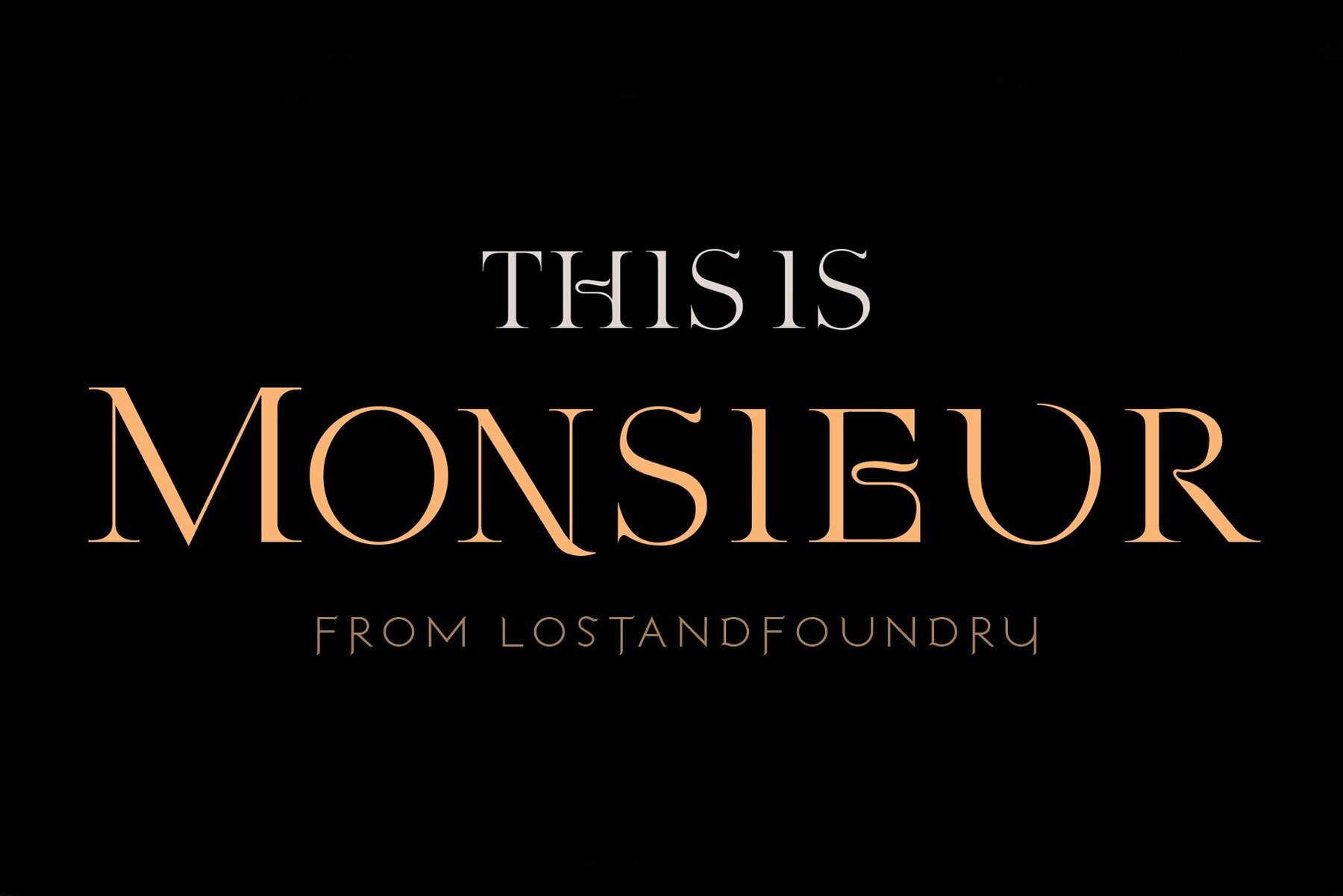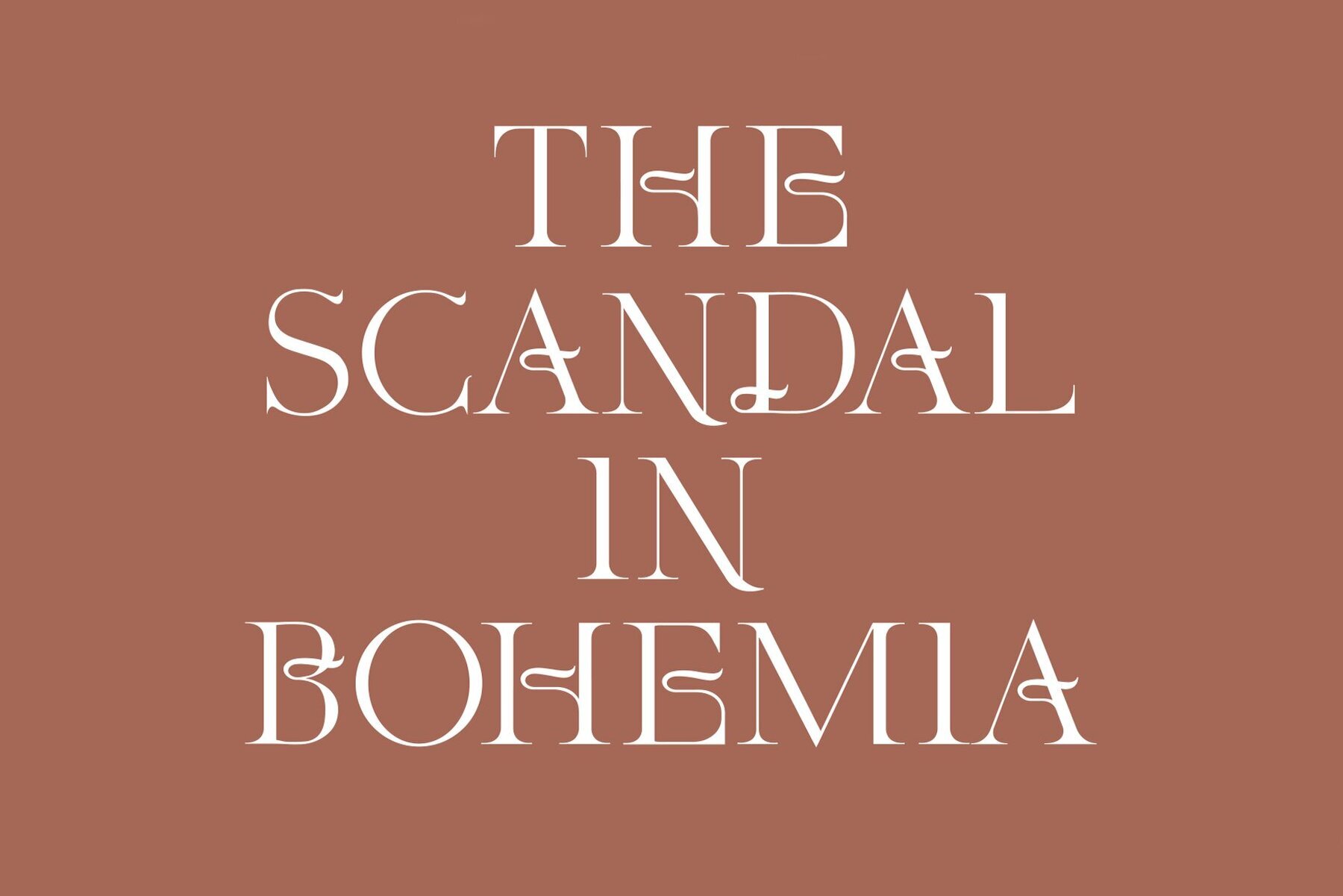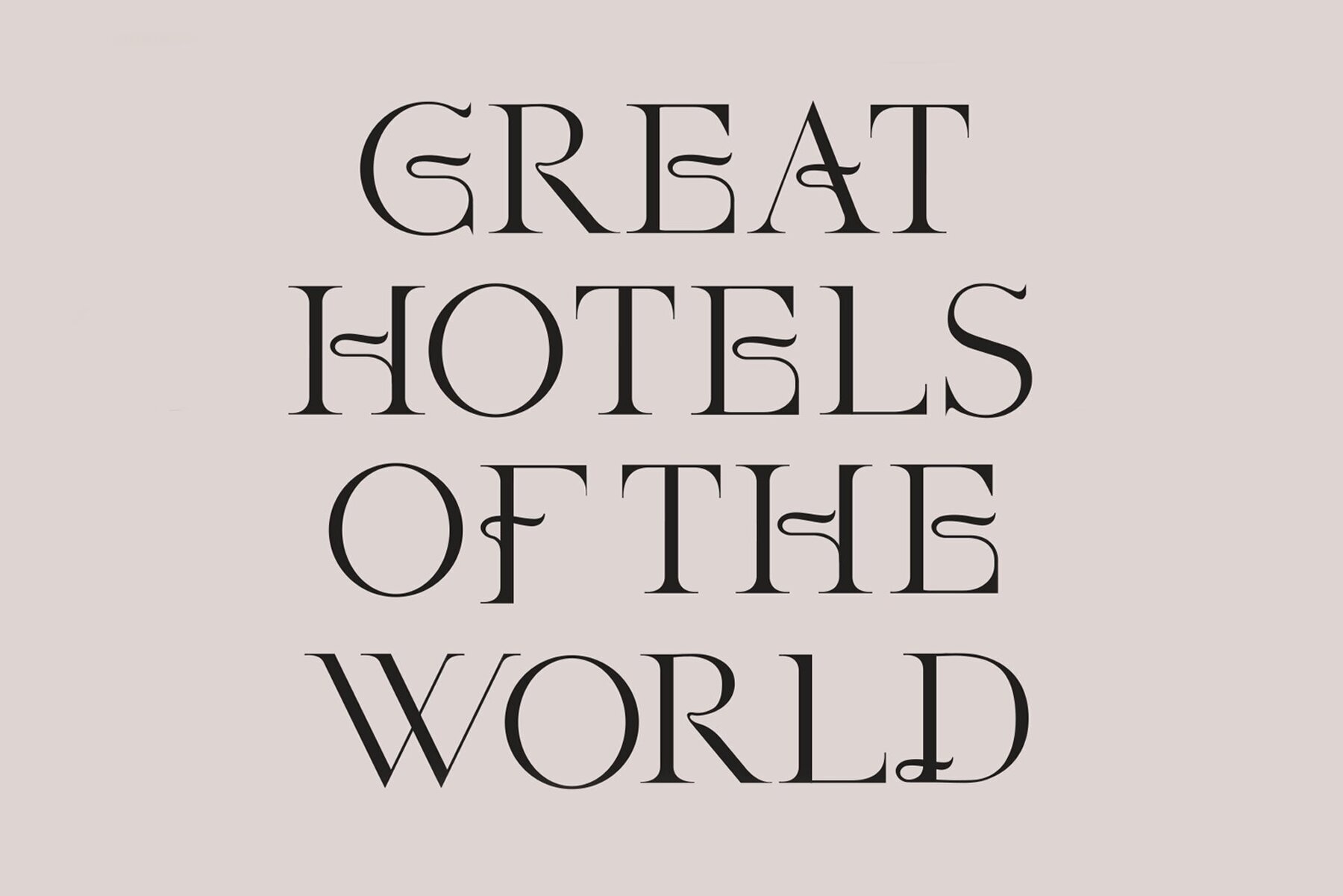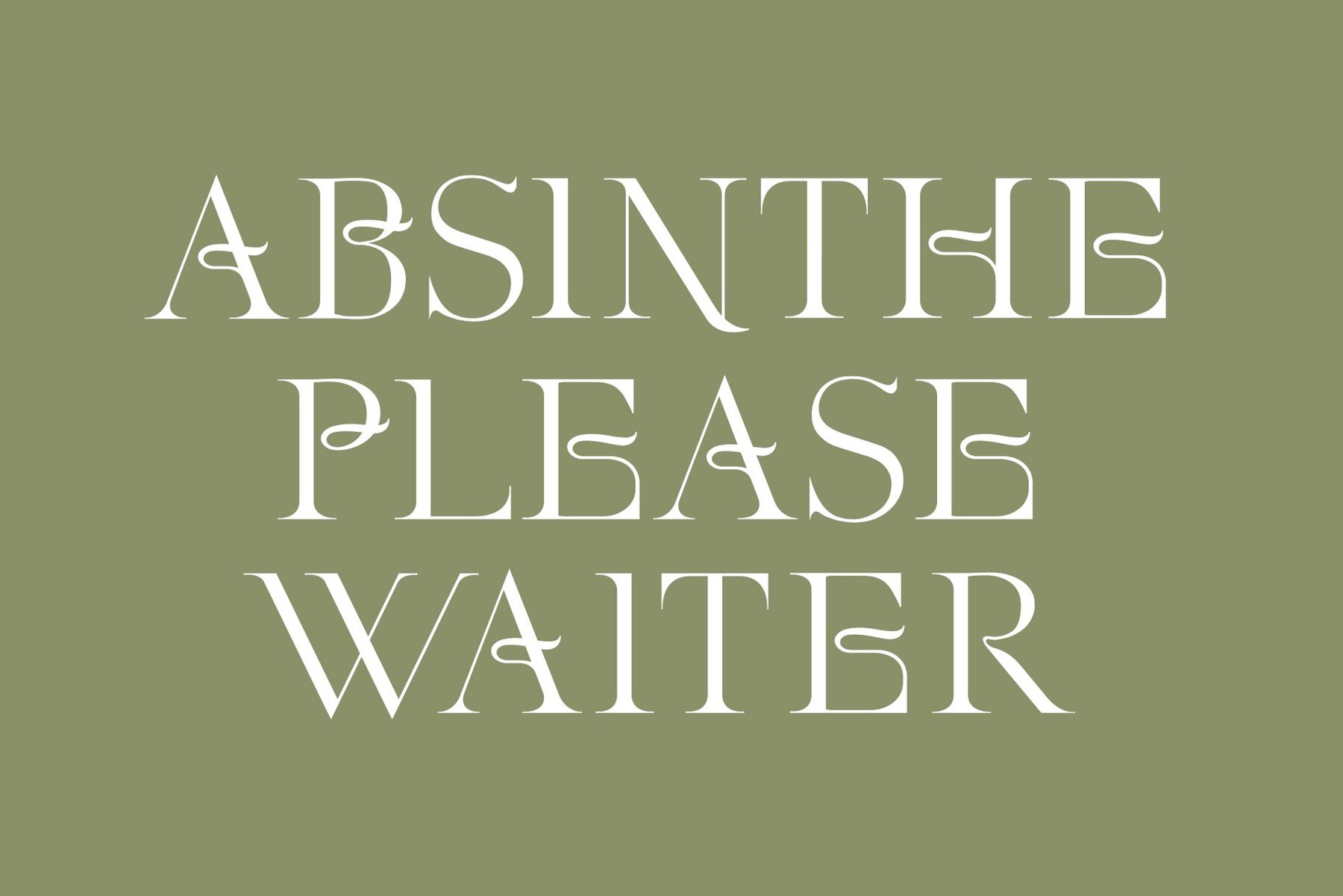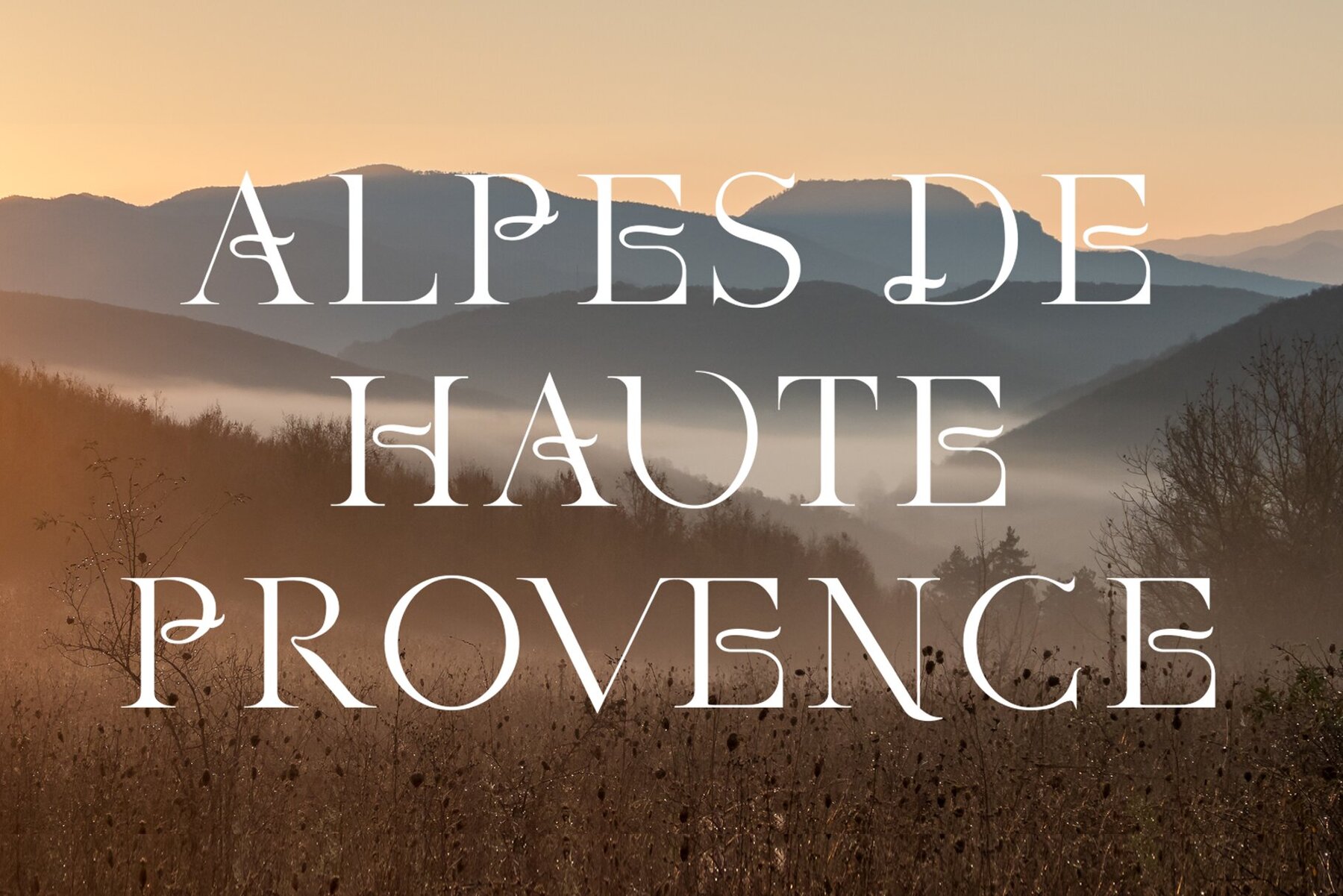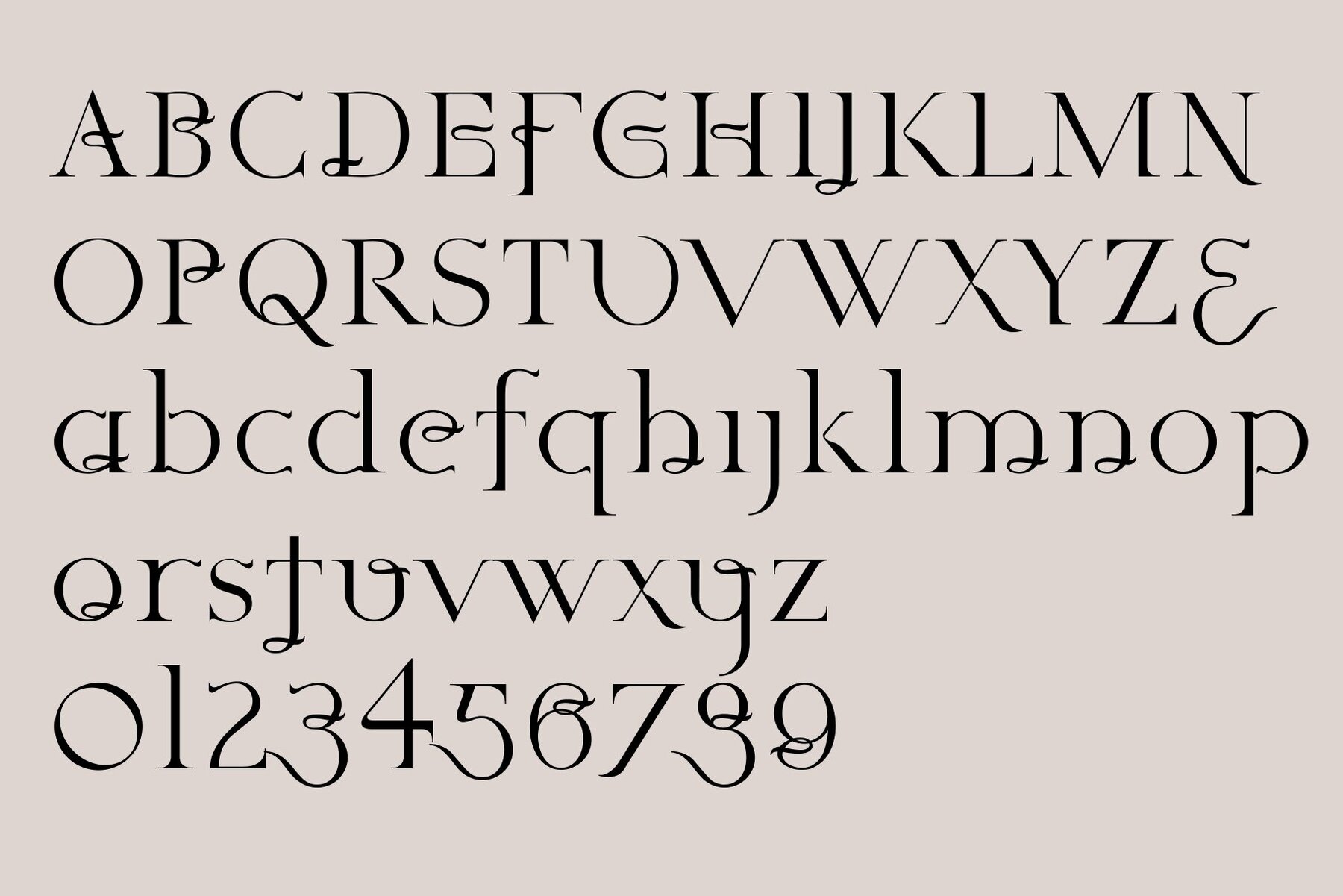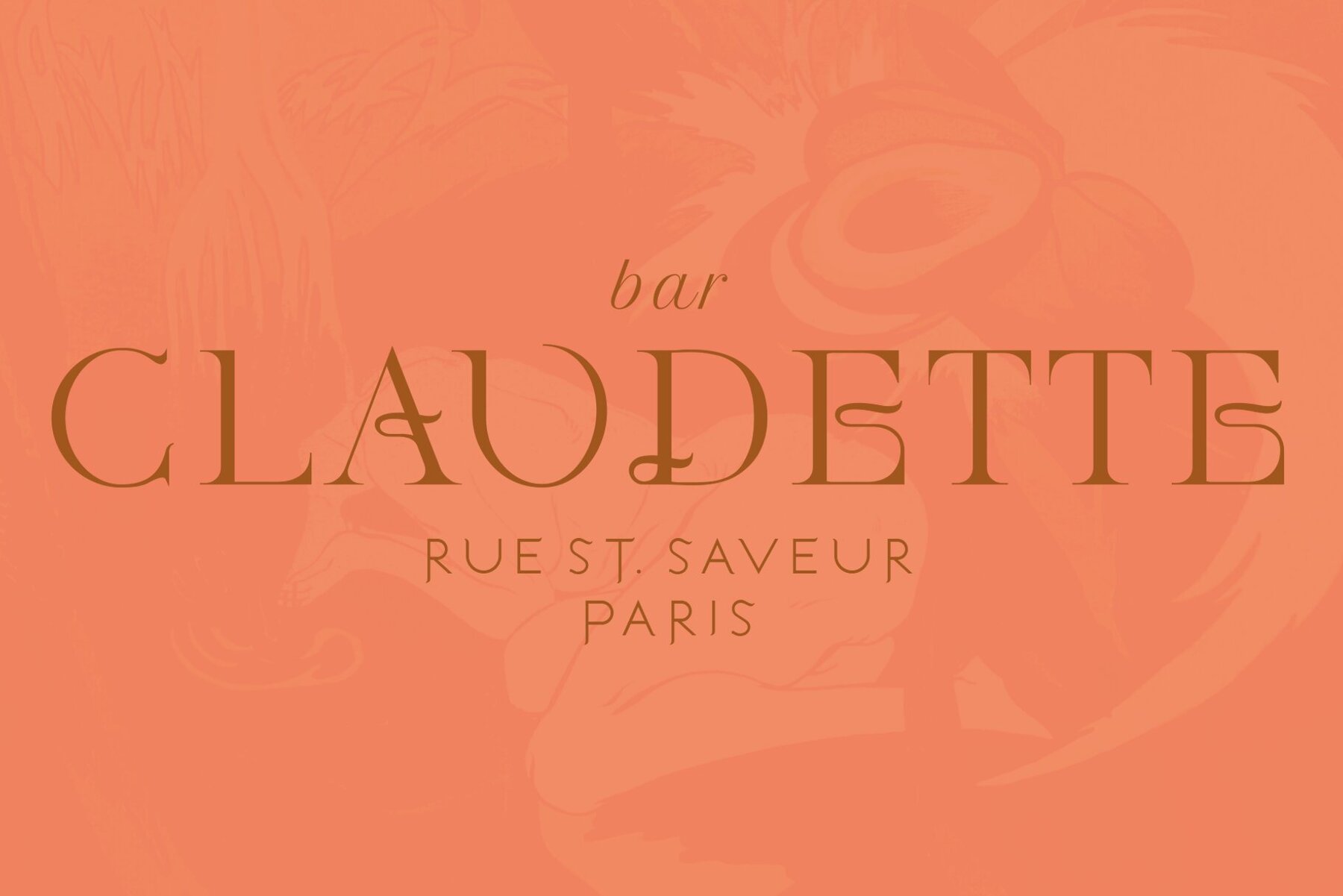
Monsieur Font
This display serif typeface, designed by Lostand Foundry, features a transitional and high-contrast style. Perfect for making a sophisticated and stylish statement in any graphic design project, it blends classical elegance with contemporary sharpness, making it highly versatile for both formal and dynamic contexts. The font's distinctive characters are marked by refined curves and sharp serifs, offering a luxurious and polished appearance that can enhance the visual appeal of branding, editorial work, and advertising.Monsieur: Display Serif with Transitional Design